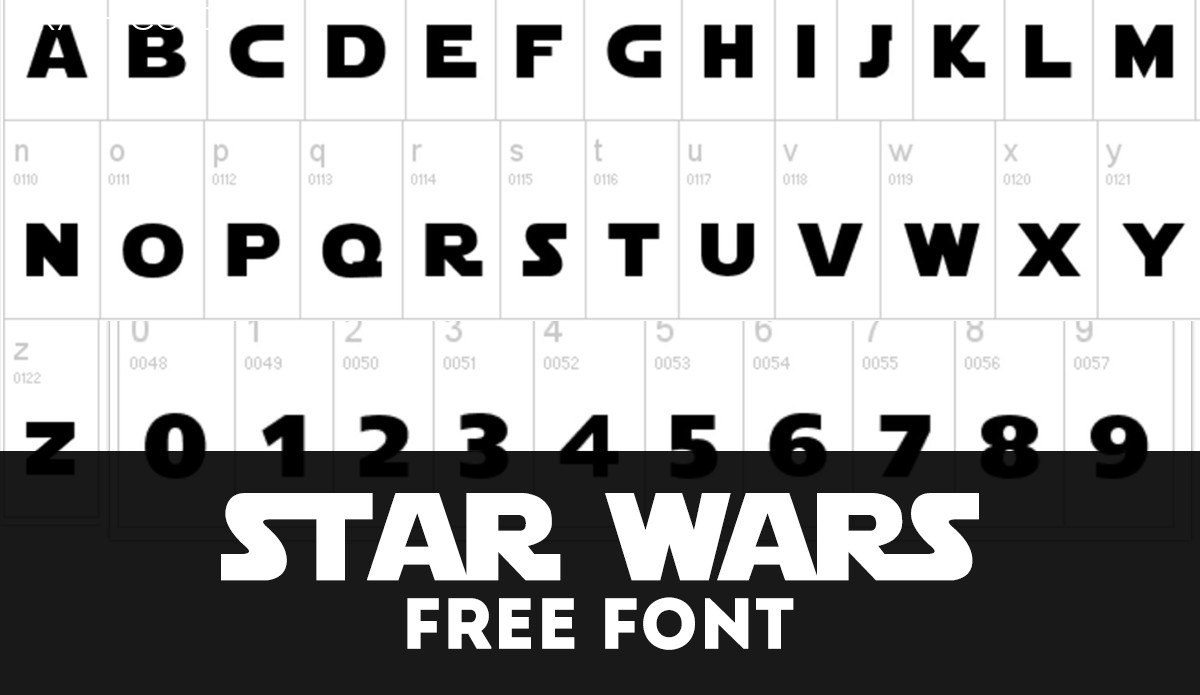
Create Star Wars-Inspired Text With Free Font Generator
If you are a fan of the Star Wars franchise, you must be familiar with the unique and iconic lettering used in the famous movie series. This typography is known as the Star Wars Font, and it has become a popular choice for designers and fans alike.
Apart from being a fun tool for Star Wars fans, a Star Wars Font Generator is also a valuable resource for designers. It allows them to create unique and striking designs with the iconic Star Wars Font, making their projects stand out from the rest.
In conclusion, a Star Wars Font Generator is a great tool for fans and designers alike. It is free, easy to use, and allows you to create custom Star Wars Font text in a matter of seconds. Whether you want to create a design for a t-shirt, poster, or any other project, a Star Wars Font Generator can help you achieve your desired effect. May the font be with you!